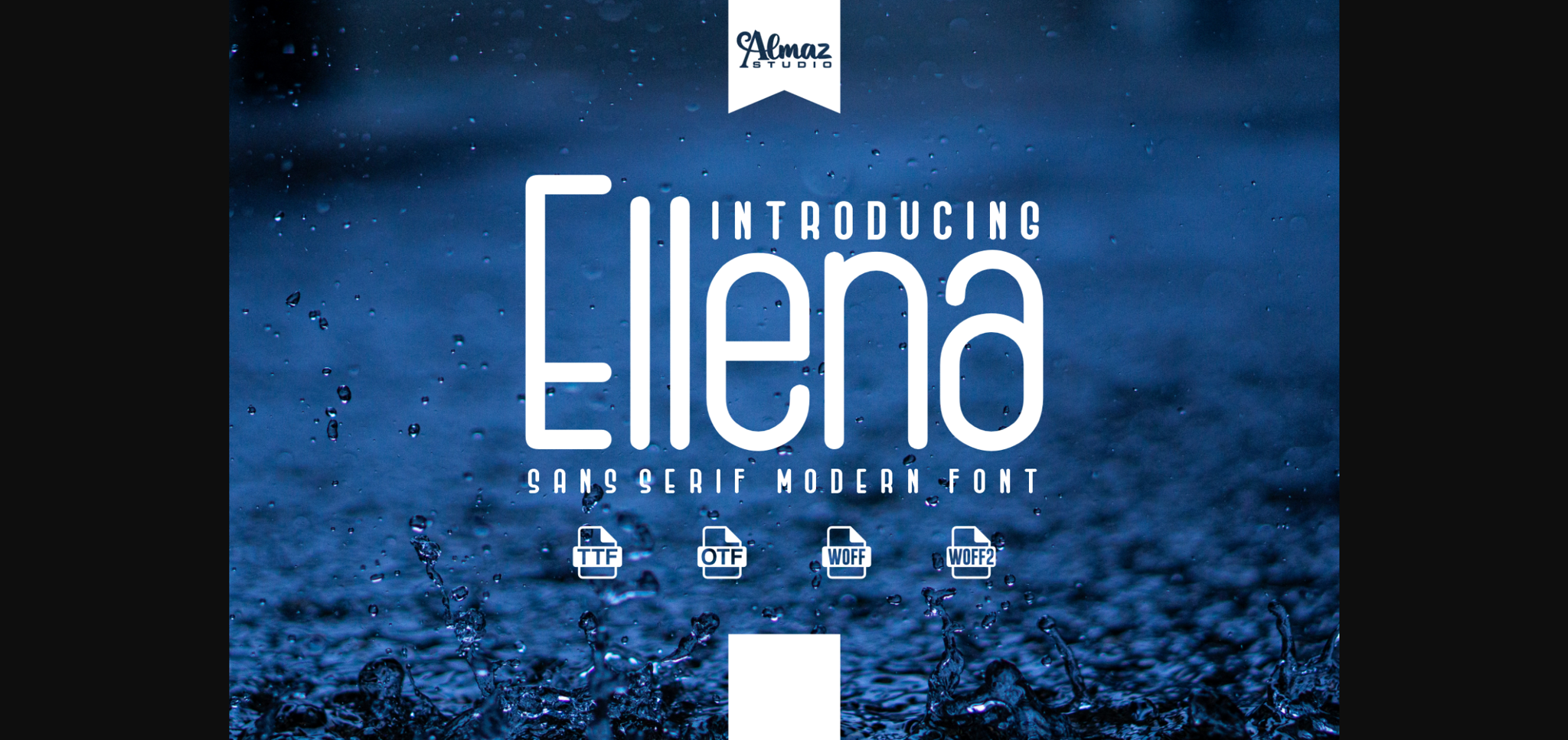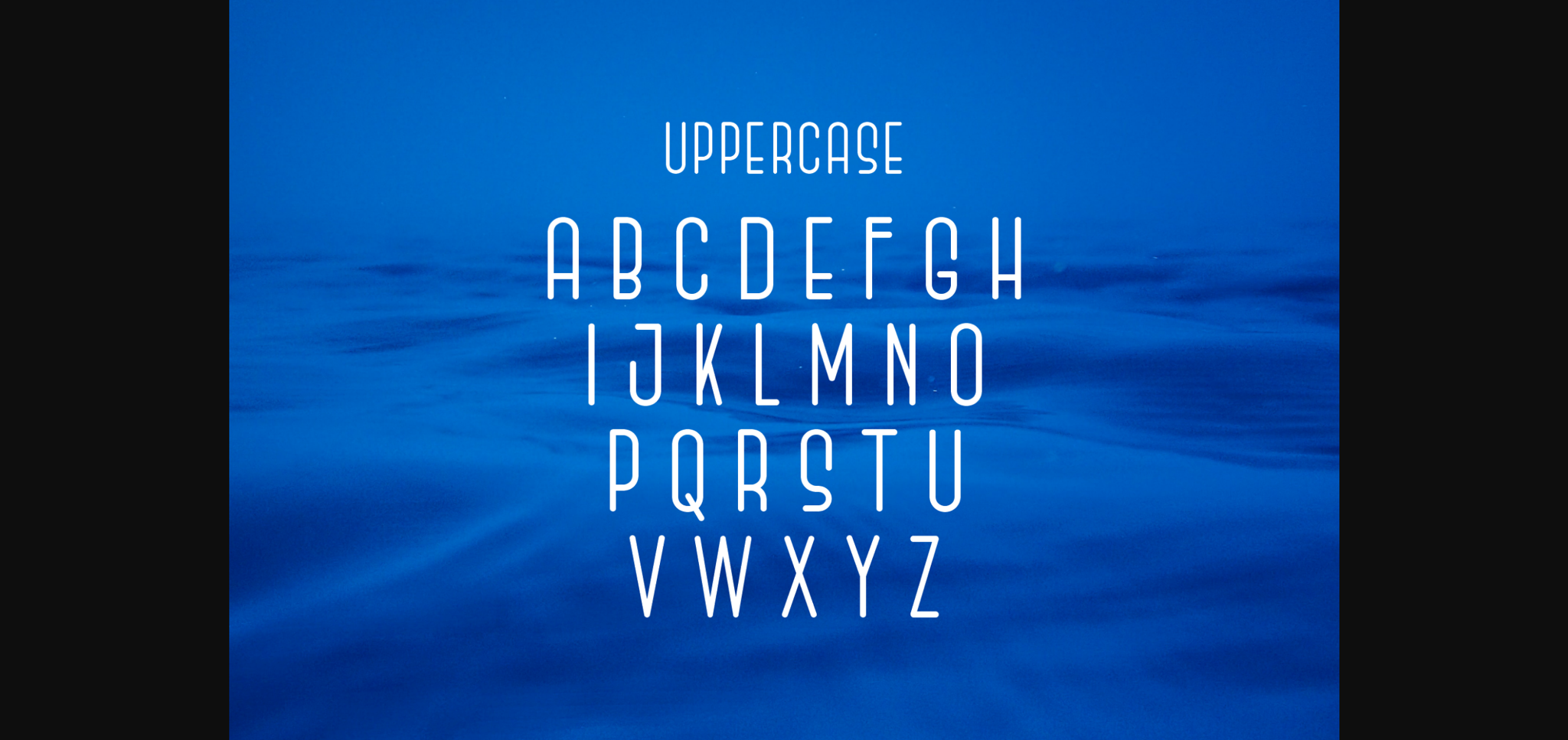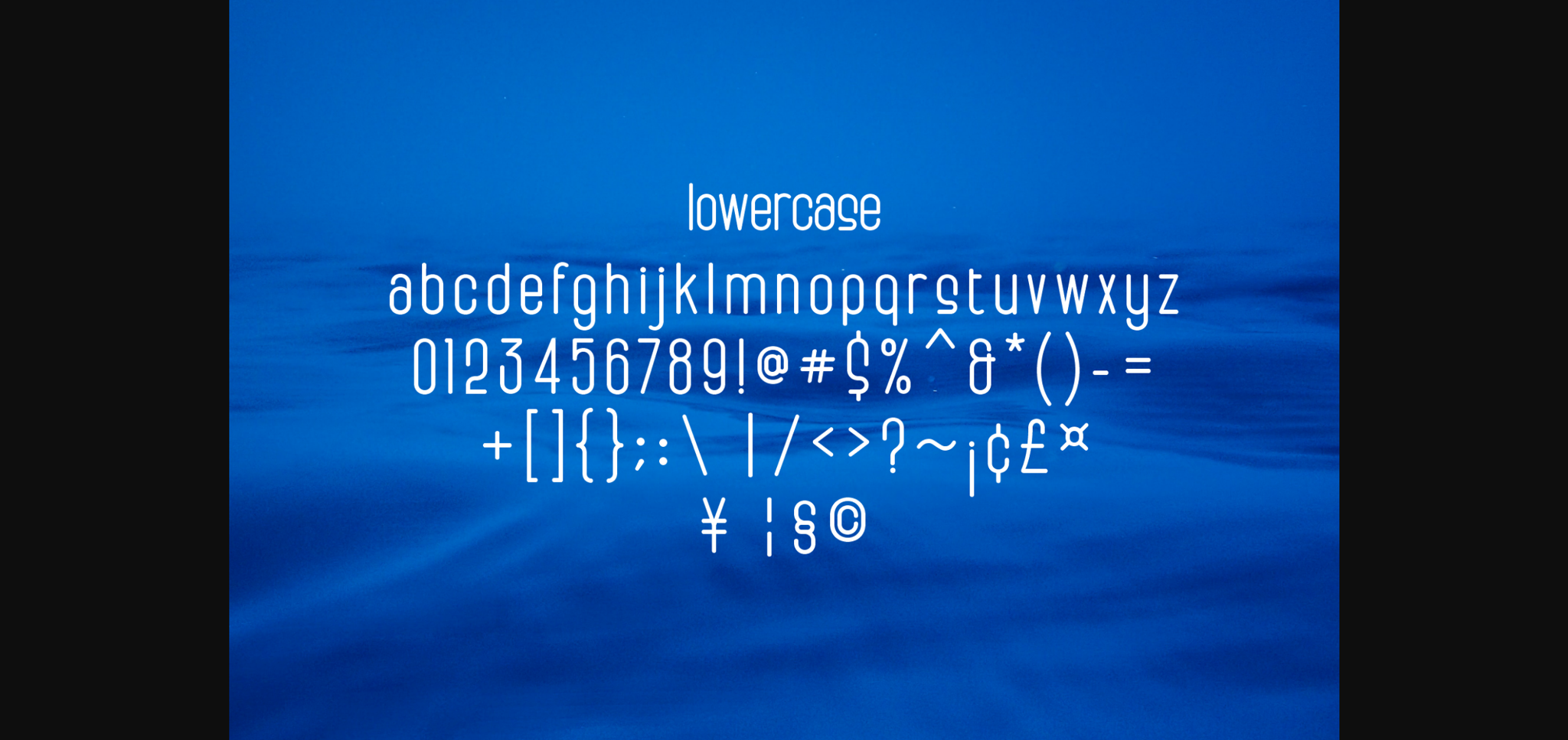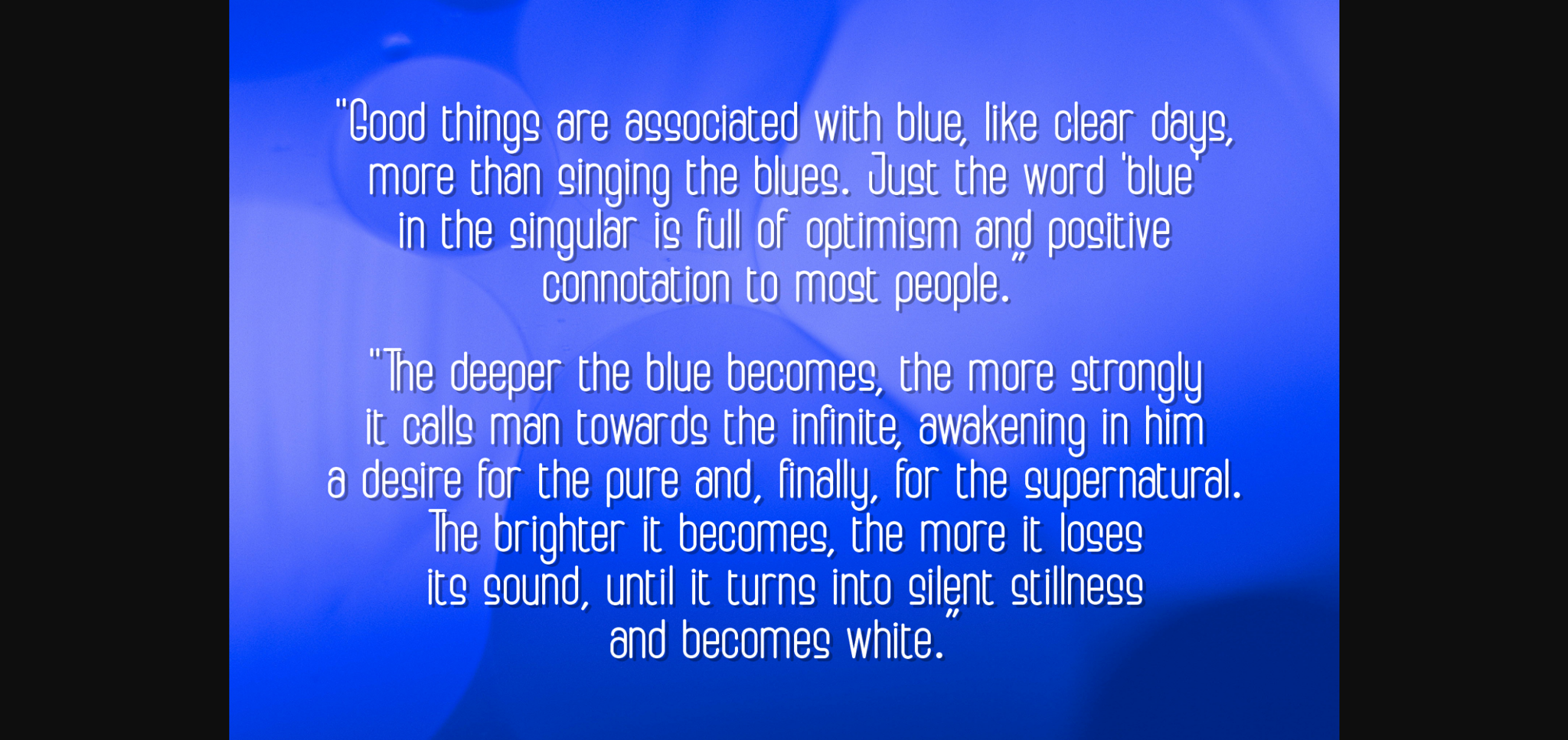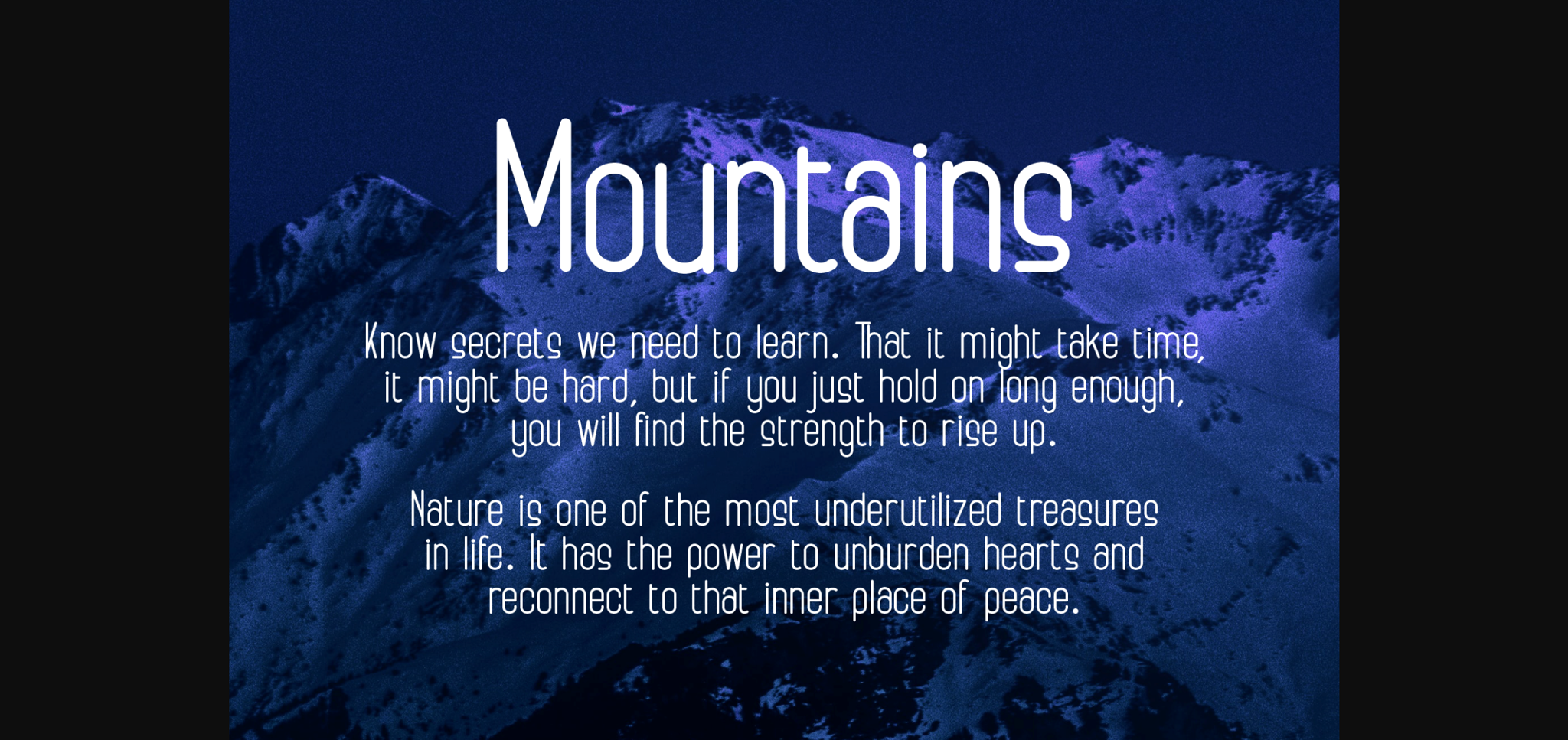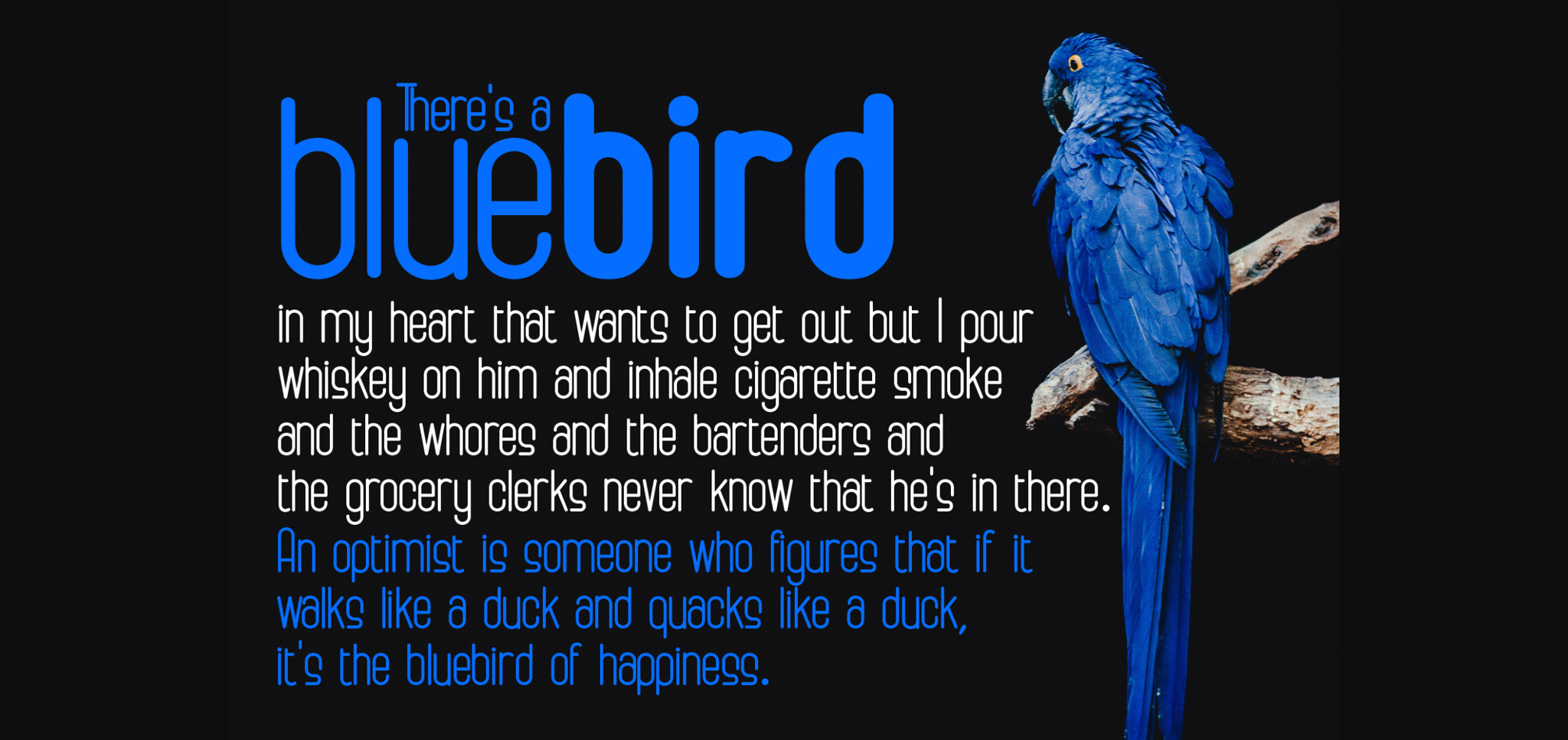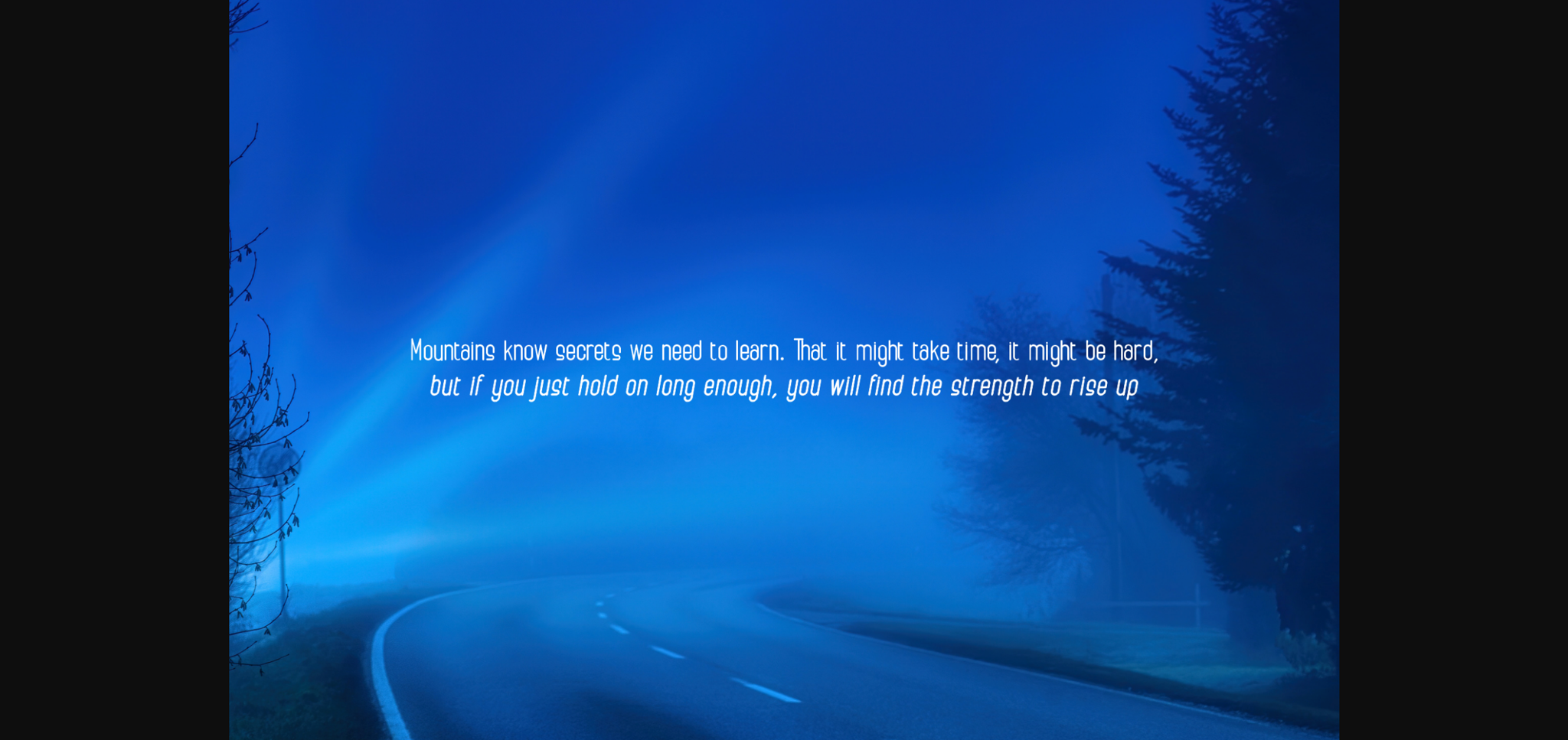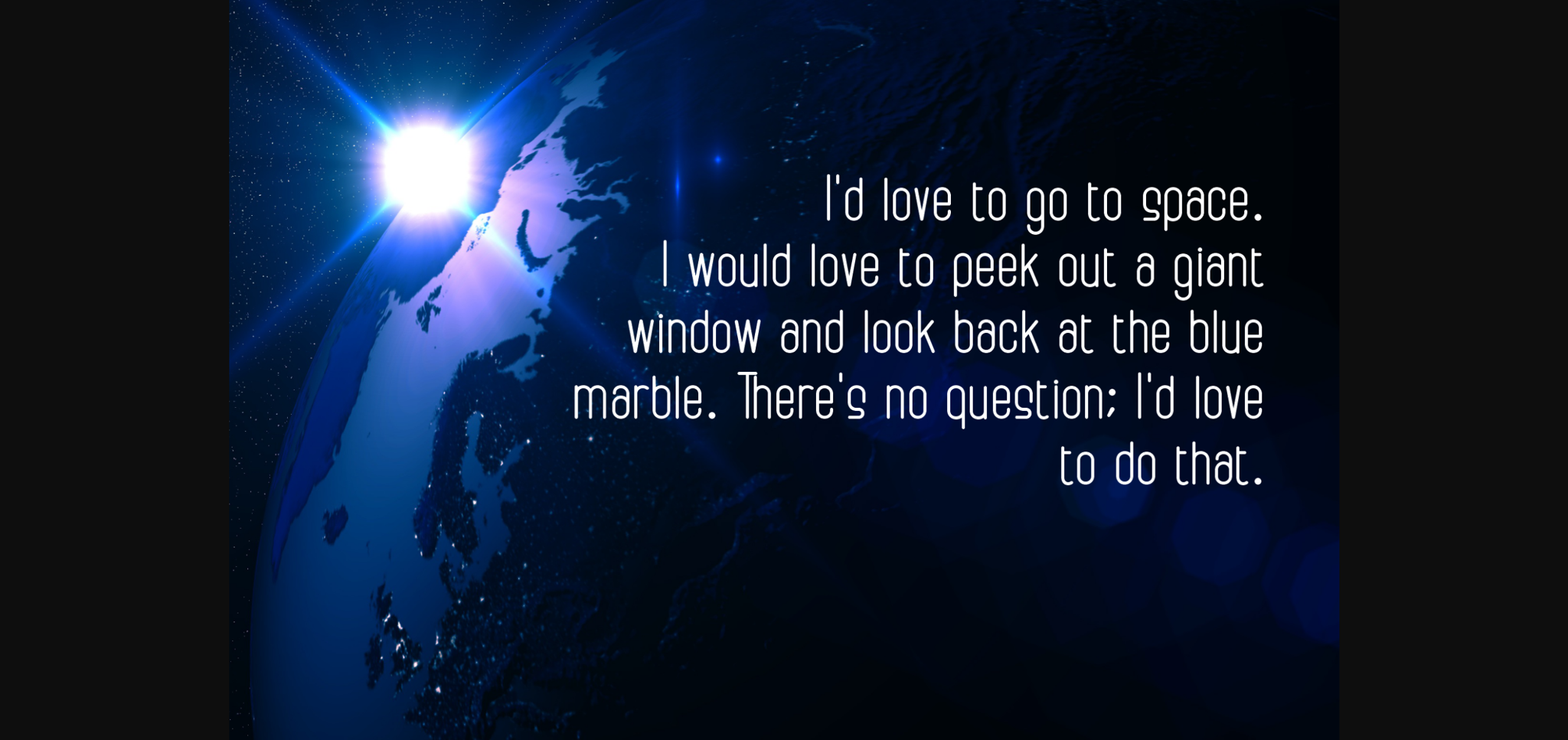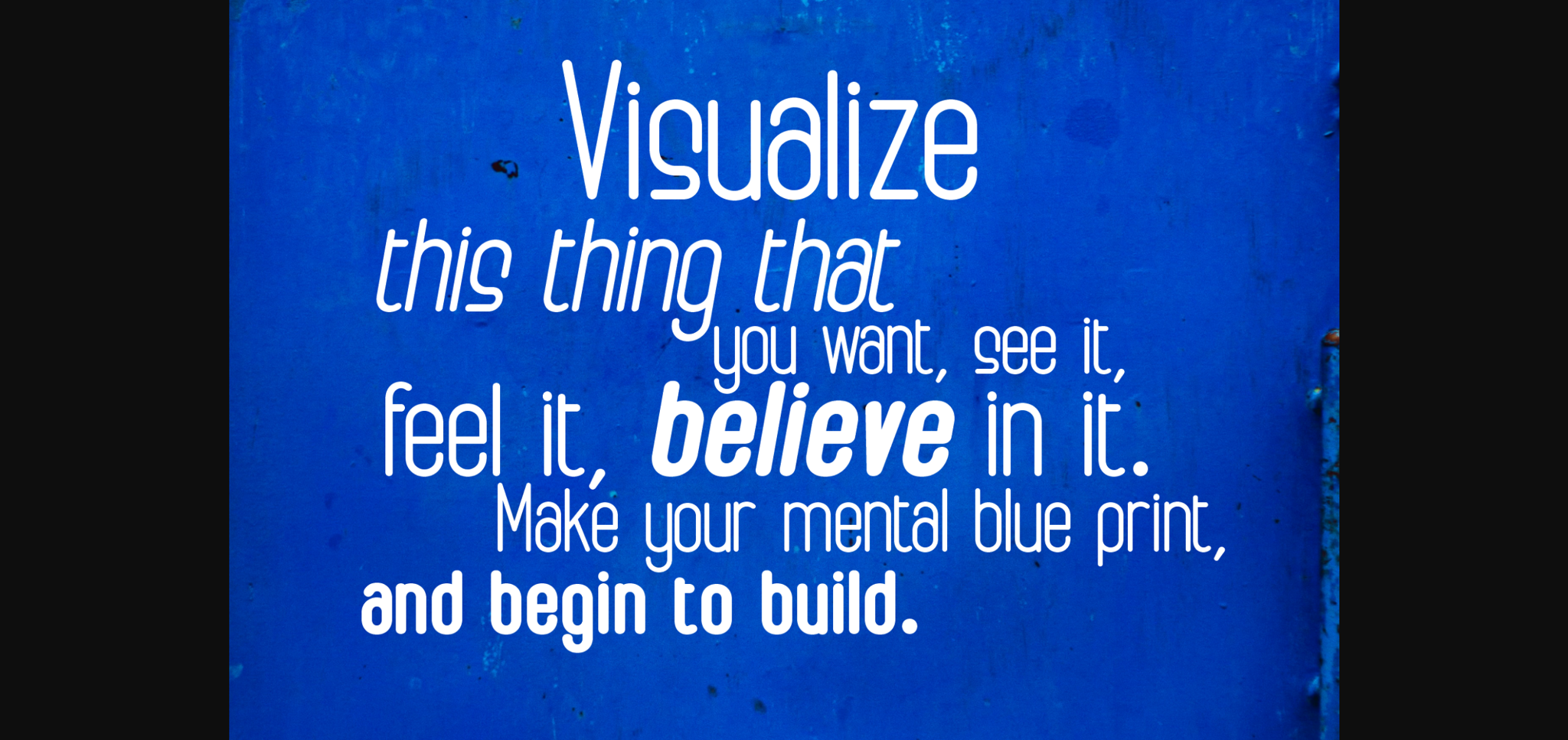
Ellena is a modern and neat sans serif font. This typeface will enhance your craft with little effort, making your product stand out from the competition.